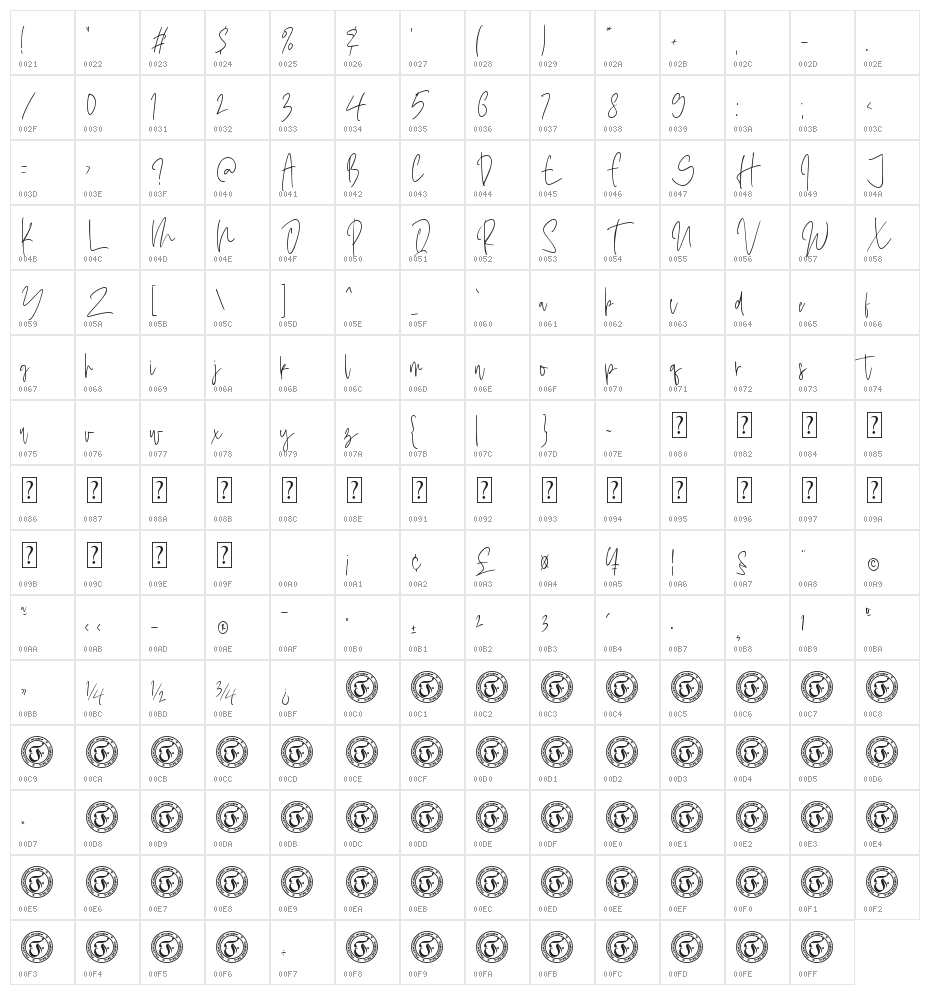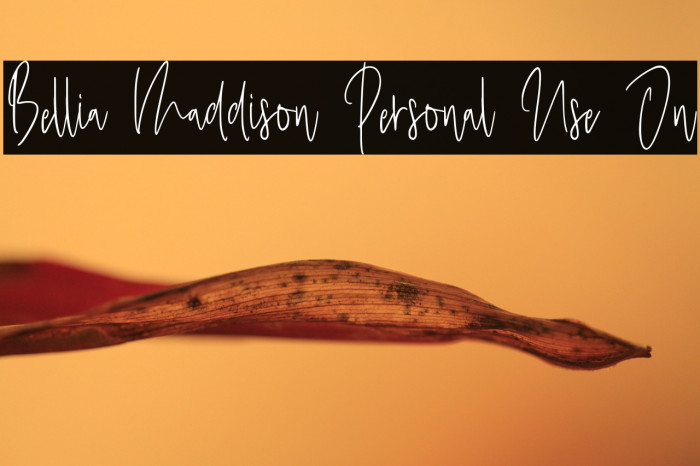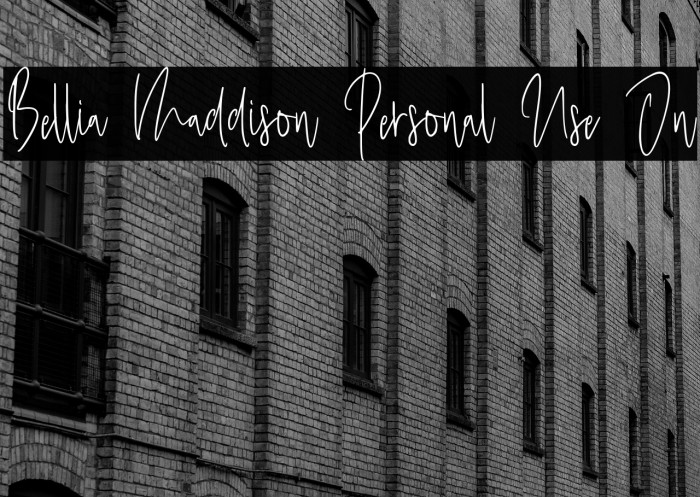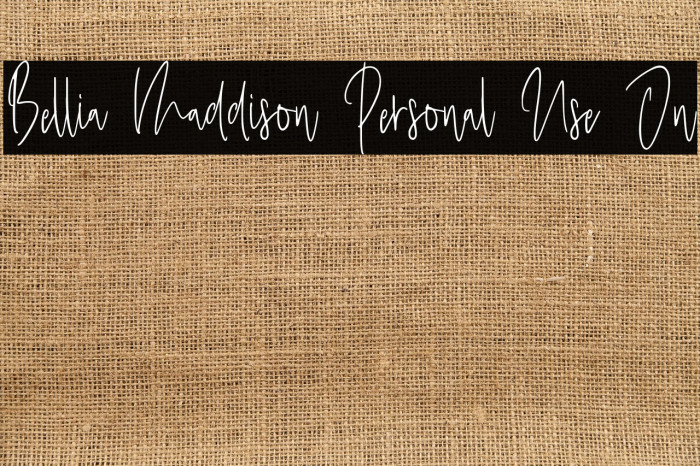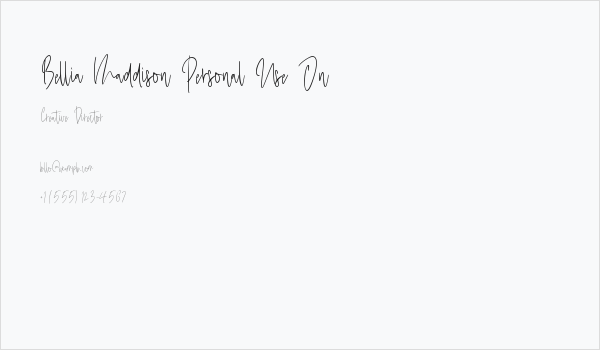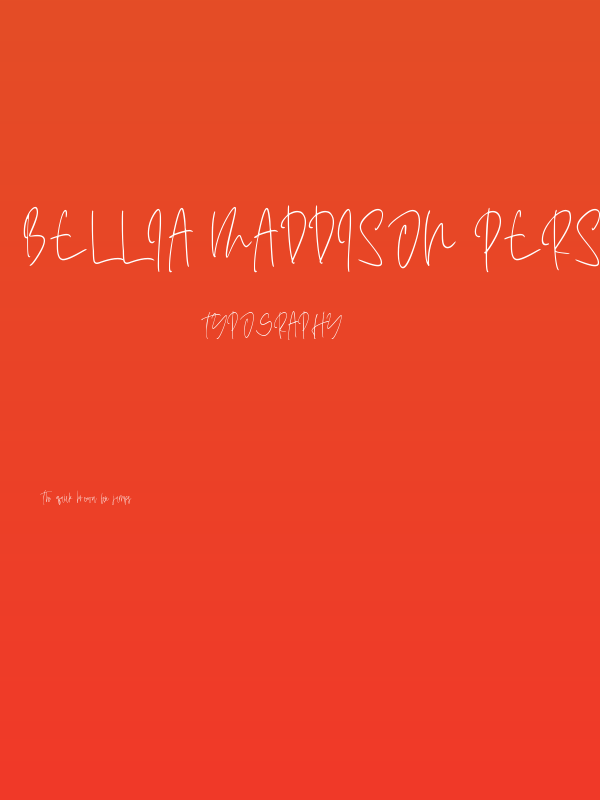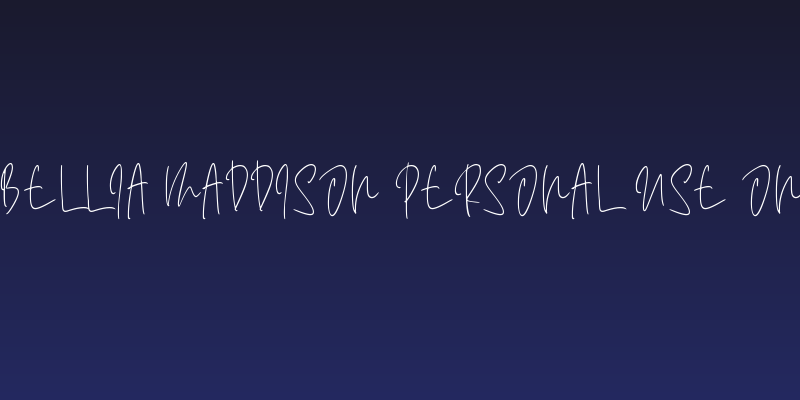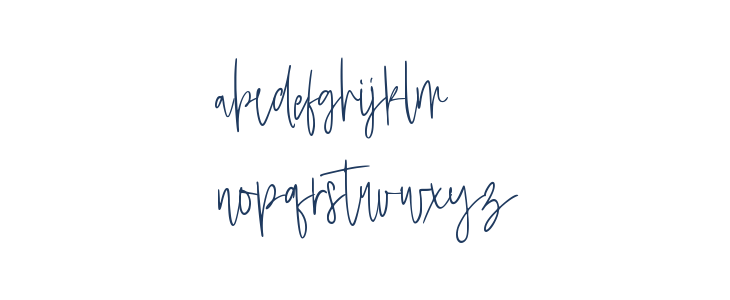
Bellia Maddison Personal Use On Font
Bellia Maddison Personal Use On Description
This font features a lively and dynamic handwritten style, characterized by its fluid and flowing letterforms. The uppercase letters are tall and slightly narrow, with a playful, casual appearance. The lowercase letters maintain the same energetic vibe, with some letters connecting seamlessly to others, enhancing the handwritten feel. The numbers and special characters are consistent with the overall style, adding a touch of whimsy and personality. The strokes are thin and delicate, contributing to a light and airy aesthetic. This font is perfect for projects that require a personal and informal touch, such as invitations, greeting cards, or creative branding.
| Use Case | Logos, Headlines, Informal Text |
| Proposed Projects | Ideal for invitations, greeting cards, creative branding, and any project needing a personal touch. |